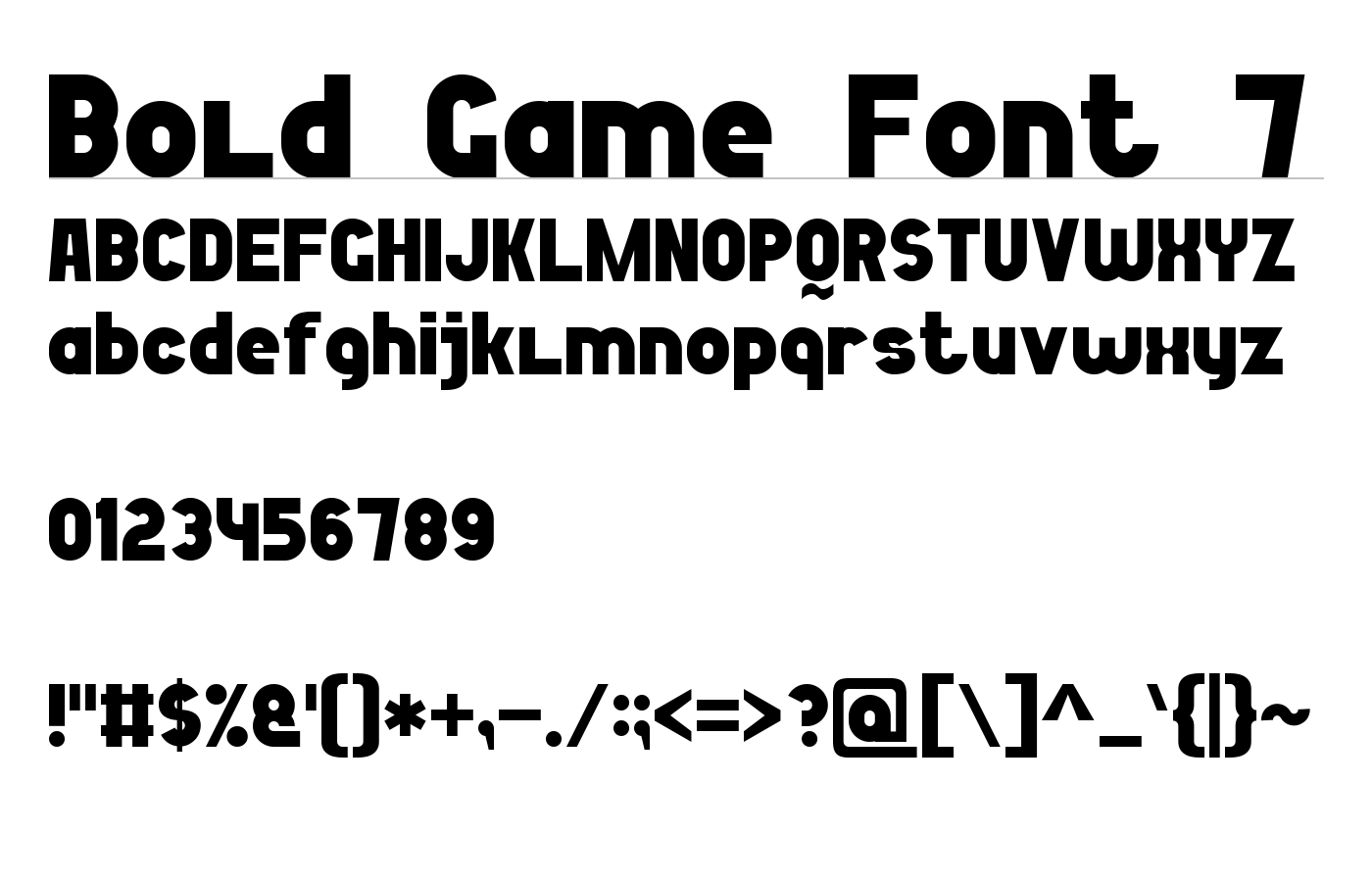
Bold Game Font 7 is a striking, bold sans serif typeface designed with a playful, modern edge. Its thick, uniform strokes and unique character shapes make it perfect for eye-catching headlines, logos, and gaming-related designs where a strong, energetic personality is needed. This font works best in display settings where impact and readability combine to create a fun yet confident mood.
| Font family | Bold Game Font 7 Font |
| Designer | Sizenko Alexander |